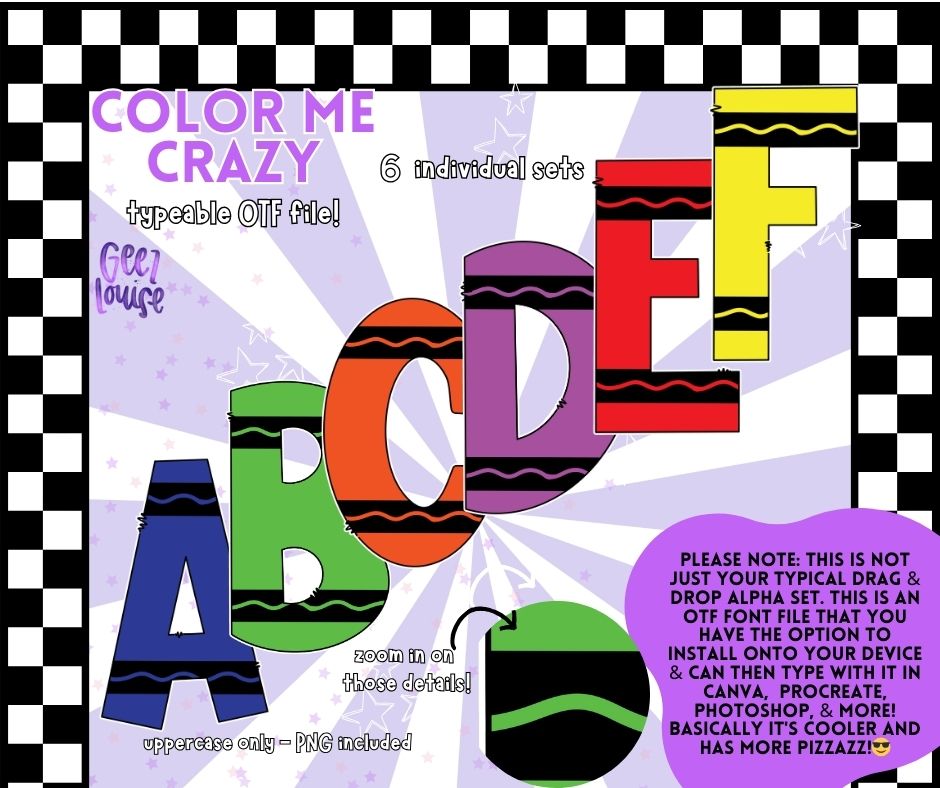
Color Me Crazy (6sets) - Retro Wavy Rainbow OTF Font + PNG Alpha Set
Say hello to chaos, color, and creativity with the Color Me Crazy OTF Font! 🌈🌀 Featuring 6 wild colorways, thick bold letters, and retro-style wavy stripe details, this funky rainbow-inspired font is perfect for 80s/90s throwbacks, school projects, birthday graphics, kids' party gear, and bold, fun branding.
✔️ Uppercase only — because these letters do NOT whisper
✔️ Includes 6 unique color sets to mix and match
Whether you're crafting for neon lovers, retro fanatics, or just love a loud vibe, Color Me Crazy is your new go-to chaos font. 🎨🛼